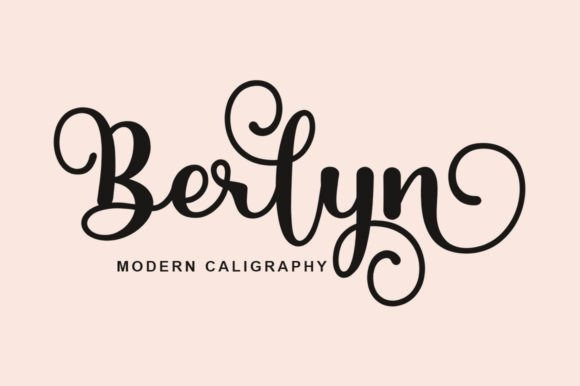
Berlyn Font
Berlyn Script Font feels equally romantic and whimsical. It looks lovely on wedding invitations, thank you cards, quotes, greeting cards, logos, business cards, and every other design which needs a handwritten touch.
This font is PUA encoded, which means you can access all of the glyphs and swashes with ease! It features a varying baseline, smooth lines, gorgeous glyphs, and stunning alternates.